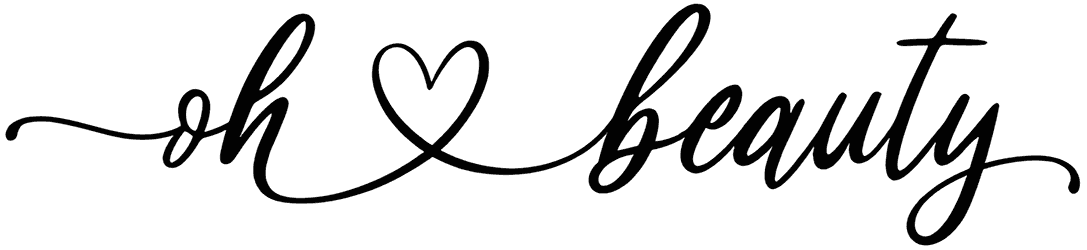
Oh Beauty Font
The romantic atmosphere of the design is communicated through the use of the adorable font known as Oh Beauty. It’s not a readable font, but the artwork you create with it for posters, cards, or even t-shirt paint will be stunning.